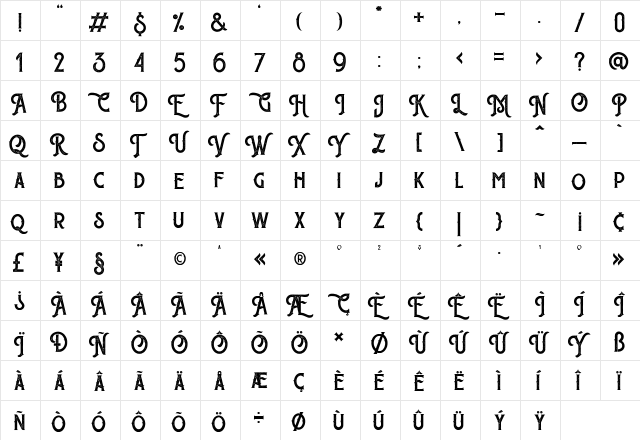
Sherlock Vintage
Foundry Andika Setiawan
StyleVintage
FoundryAndika Setiawan
DesignerAndika Setiawan
Design Context for Sherlock Typeface
Sherlock has the warm character of retro typography — evoking diners, record sleeves, and the golden age of print advertising.
Ideal for diner signage, record shop branding, 70s/80s-themed projects, and heritage product labels.
Font Pairing: Combine Sherlock with a simple slab or neutral sans — period-accurate companions reinforce the vintage feel without competing for attention.
Pro Tip: Lean into Sherlock's period character by pairing it with aged paper textures, muted colour palettes, and vintage illustration styles.